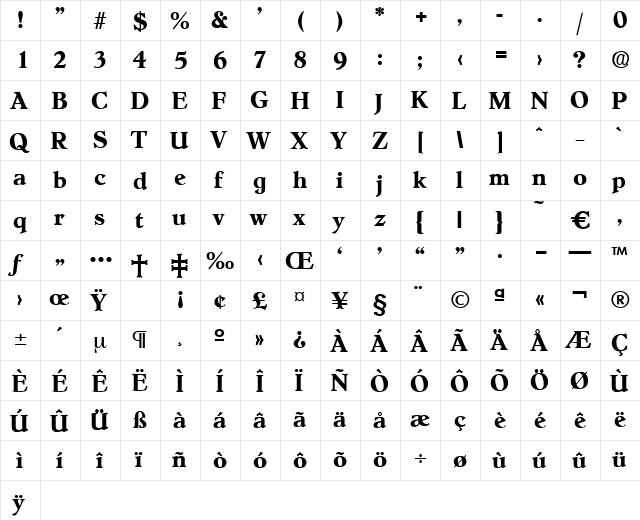
Hoboken-Bold Regular
Design Context for Hoboken-Bold Typeface
Hoboken-Bold takes a measured approach to typography — its balanced proportions and neutral character make it a reliable workhorse for both digital and print work. The heavy weight commands attention and anchors typographic hierarchies.